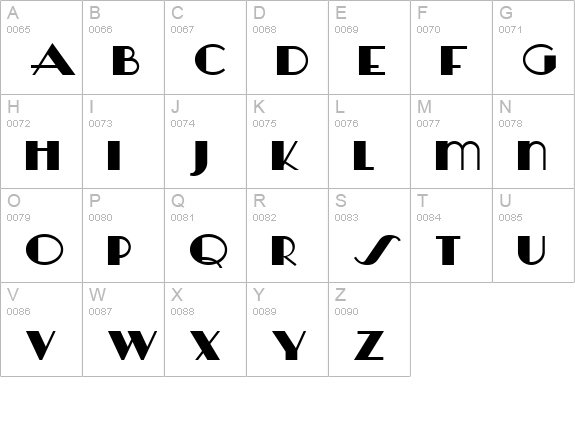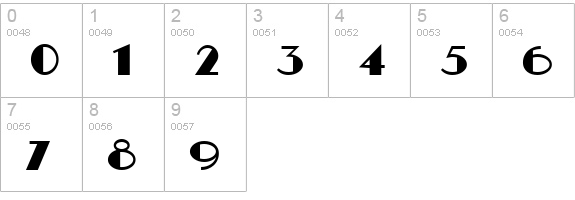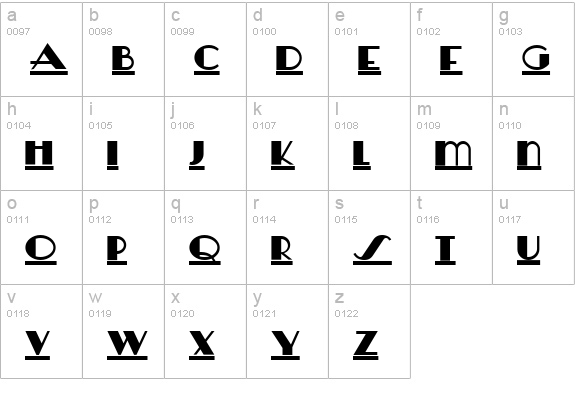
Herald Square NF font is a classic and elegant typeface that exudes sophistication and charm. With its timeless appeal and clean lines, this font is perfect for a wide range of design projects, from invitations to branding to signage. The sleek and stylish letterforms of Herald Square NF will add a touch of class to any project, making it stand out and grab attention. What's even better is that Herald Square NF font is available for free download at FontsMarket.com. Now you can elevate your designs with this beautiful font without having to spend a dime. Don't miss out on this opportunity to enhance your creative work with a high-quality and stylish typeface that is freely accessible to all. Download Herald Square NF font today and let your designs shine!